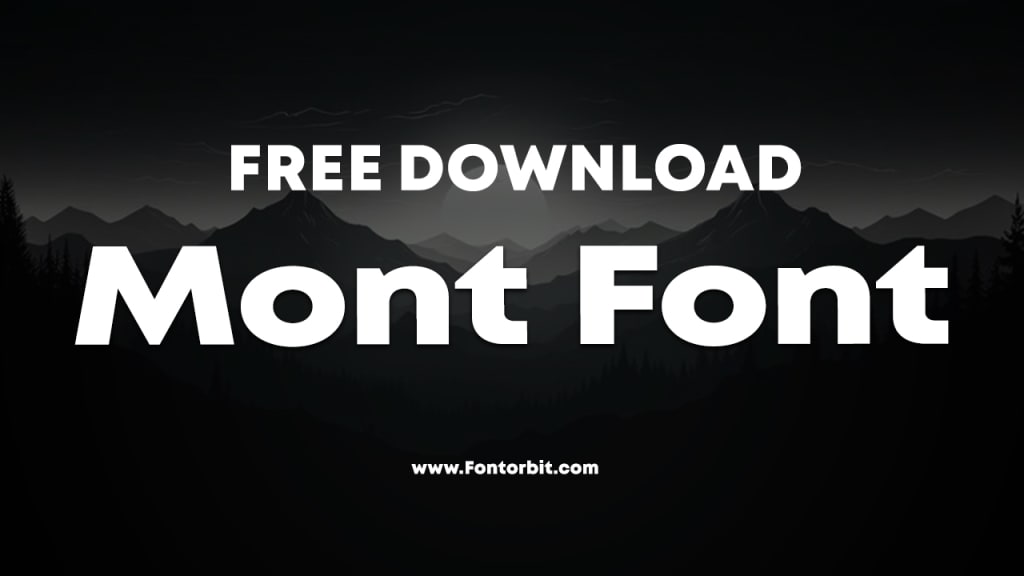
Mont Font: A Modern Typeface with Versatility
Mont Font
Typography plays a crucial role in design, branding, and communication. Among the multitude of typefaces available today, Mont Font has carved out a unique identity.
With its clean lines and versatile design, Mont Font has become a favorite among graphic designers, typographers, and brand strategists. In this article, we delve into the history, features, applications, and why Mont Font is a must-have in your font collection.
History of Mont Font
Mont Font is a modern geometric sans-serif typeface created by Fontfabric, a type foundry known for its innovative and high-quality font designs.
First released in 2018, Mont Font was designed to bridge the gap between aesthetics and functionality. Its geometric structure and minimalistic design make it suitable for a variety of applications, from digital interfaces to print materials.
Key Features of Mont Font
Versatility: Mont Font includes 10 weights, ranging from Hairline to Black, along with matching italics. This extensive range allows designers to use it for diverse projects, whether for headings or body text.
Geometric Precision: The font’s geometric base ensures a harmonious and balanced appearance, making it visually appealing.
Extensive Language Support: Mont Font supports over 130 languages, including Latin and Cyrillic scripts, making it ideal for global audiences.
Legibility: Its clean design and well-proportioned characters enhance readability across different mediums and sizes.
Advanced Features: Mont Font includes OpenType features like ligatures, fractions, and stylistic alternates, giving designers greater creative control.
Applications of Mont Font
Mont Font’s versatility makes it suitable for a wide range of applications:
Branding and Logo Design: Its modern and professional look makes it ideal for logos and corporate identities.
Web Design: The font’s legibility and clean lines ensure an excellent user experience on websites and mobile applications.
Editorial Design: Mont Font works well for magazines, books, and newspapers, thanks to its balanced character set.
Advertising: From billboards to social media campaigns, Mont Font’s adaptability allows it to shine in various advertising mediums.
Packaging Design: Its sleek and modern appearance enhances the visual appeal of product packaging.
Why Choose Mont Font?
Mont Font is more than just a typeface; it’s a design tool that can elevate your projects. Its geometric precision, extensive weights, and language support make it a versatile choice for both professional designers and casual users. Moreover, its ability to convey a contemporary and polished aesthetic ensures that it stays relevant across different design trends.
Conclusion
Mont Font stands out as a modern typeface that combines style, functionality, and versatility. Whether you’re working on a brand identity, designing a website, or creating print materials, Mont Font is a reliable choice that delivers exceptional results. Its geometric design, legibility, and extensive language support make it an indispensable tool in any designer’s toolkit.
1. What is Mont Font?
Mont Font is a geometric sans-serif typeface designed by Fontfabric, known for its modern, clean, and versatile design suitable for various applications.
2. How many weights does Mont Font have?
Mont Font offers 10 weights, ranging from Hairline to Black, along with matching italics.
3. Does Mont Font support multiple languages?
Yes, Mont Font supports over 130 languages, including Latin and Cyrillic scripts.
4. Can I use Mont Font for web design?
Absolutely. Mont Font’s clean and legible design makes it ideal for websites and mobile applications.
5. Is Mont Font suitable for branding?
Yes, Mont Font’s modern and professional appearance makes it perfect for logos and corporate identities.
6. What are the OpenType features included in Mont Font?
Mont Font includes advanced OpenType features such as ligatures, fractions, and stylistic alternates.